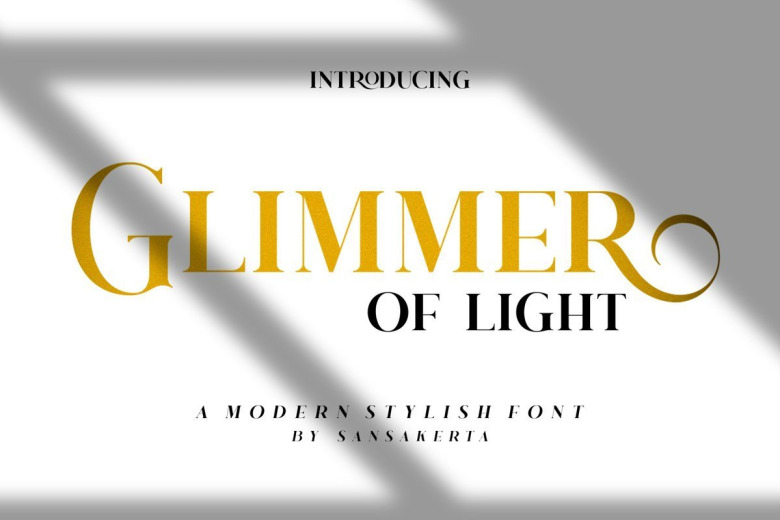
Glimmer Of Light Font
Glimmer Of Light Modern Serif Font is a smooth criminal. This wild and majestic typeface adds a dangerously elegant twist to any design. Although the inspiration for this typeface comes from the Art Deco era, Glimmer Of Light feels modern and contemporary. The large selection of stylistic alternations and ligatures makes this serif font extremely versatile.